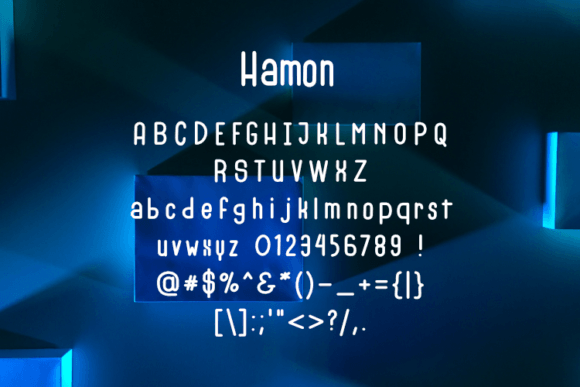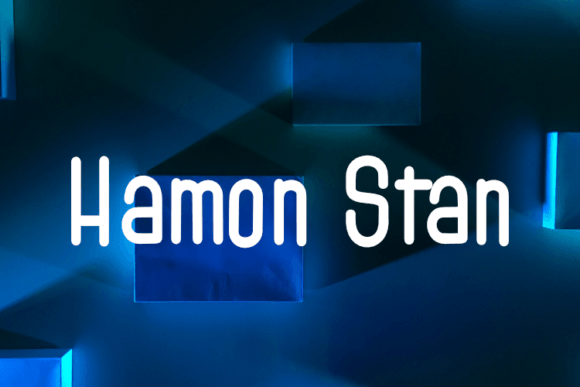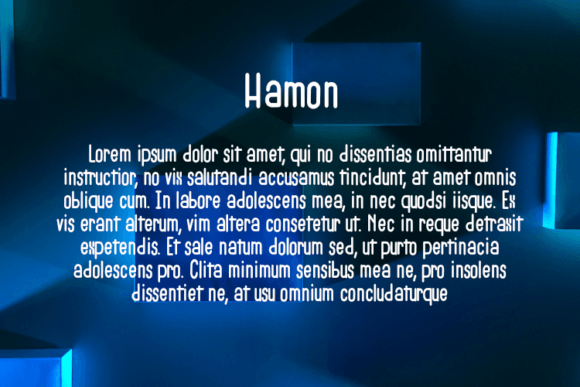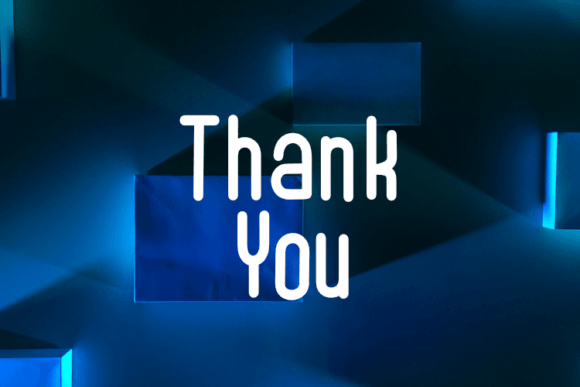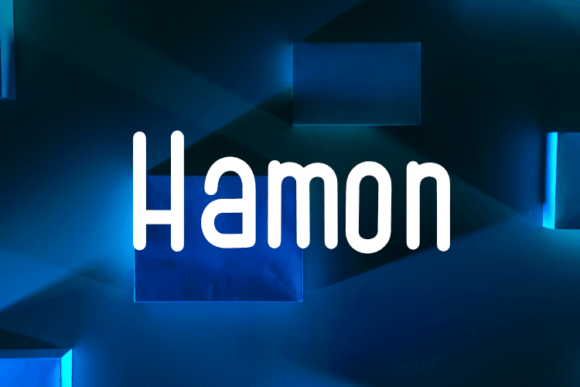
Unlock Endless Design Possibilities with Hamon Font
Are you a designer or crafter looking for a font that can add a unique touch to your projects? Look no further than Hamon, a specially curated font that embodies the perfect blend of style and versatility. With Hamon, you can transform the look and feel of any design, whether you’re working on a clothing line, creating custom t-shirts, or developing a wide range of commercial products.
The Perfect Fusion of Style and Flexibility
Hamon Font is designed to provide a seamless fusion of style and flexibility, making it an ideal choice for designers and crafters who want to push the boundaries of their creativity. Its unique flair can instantly elevate your designs, setting them apart from the rest. Whether you’re working on a bold and edgy project or a more subtle and elegant one, Hamon Font adapts effortlessly to your design vision.
With Hamon Font, the design possibilities are endless. You can use it to create stunning designs for:
• Clothing lines and fashion brands
• Custom t-shirts and apparel
• Merchandise and promotional products
• Packaging and branding materials
• Signage and display graphics
Wherever your design needs take you, Hamon Font is the perfect companion to help you achieve your creative vision.
Optimized for Seamless Performance
One of the standout features of Hamon Font is its optimized performance. It is designed to work smoothly with any software, ensuring that your design process is hassle-free and efficient. No more worrying about font compatibility issues or tedious troubleshooting – with Hamon Font, you can focus on what matters most: creating stunning designs that captivate your audience.
A Valuable Addition to Your Design Toolkit
Hamon Font is more than just a font – it’s a valuable addition to your design toolkit. Its versatility and style make it an essential resource for designers and crafters who want to take their designs to the next level. By incorporating Hamon Font into your workflow, you’ll unlock a world of design possibilities that will inspire and empower you to create something truly remarkable.
Why Choose Hamon Font?
So, why choose Hamon Font for your design projects? Here are just a few compelling reasons:
• Unique style: Hamon Font boasts a distinctive style that will set your designs apart from the rest.
• Flexibility: Its seamless fusion of style and flexibility makes it perfect for a wide range of design projects.
• Optimized performance: Hamon Font is designed to work smoothly with any software, ensuring a hassle-free design process.
• Endless design possibilities: From clothing lines to signage, Hamon Font can be used for a wide range of design applications.
With Hamon Font, you’re just a step away from elevating your designs and unlocking a world of creative possibilities. Whether you’re a seasoned designer or a crafter looking to add a professional touch to your projects, Hamon Font is the perfect choice. So why wait? Experience the versatility of Hamon Font today and discover a new world of design possibilities waiting to be explored.
In conclusion, Hamon Font is a game-changer for designers and crafters who want to add a unique touch to their projects. Its seamless fusion of style and flexibility, optimized performance, and endless design possibilities make it an essential resource for anyone looking to take their designs to the next level. With Hamon Font, you’ll unlock a world of creative possibilities that will inspire and empower you to create something truly remarkable.